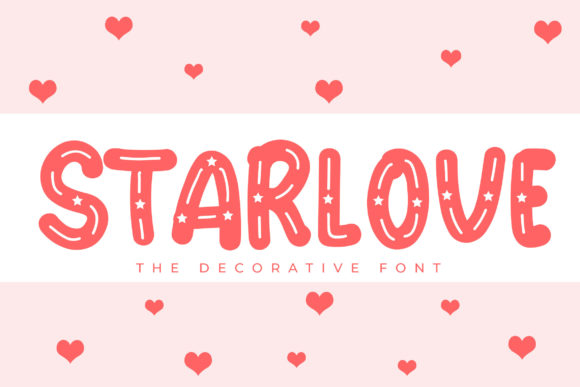
If you're looking for a font that's as sweet as candy and as charming as a child's laughter, look no further than Starlove Font! This delightful decorative font is the perfect choice for adding a touch of whimsy and wonder to your designs.
With its charmingly unique characters and playful vibe, Starlove Font will make your designs stand out from the crowd. It's perfect for logos that are sure to make a lasting impression, branding that will make your business shine, packaging that will make your products irresistible, and crafts that will bring joy to everyone who sees them.
So whether you're creating for a children's book, a fun-loving brand, or a special occasion, Starlove Font is the perfect choice to add a touch of magic to your designs. Download it today and let your imagination soar!